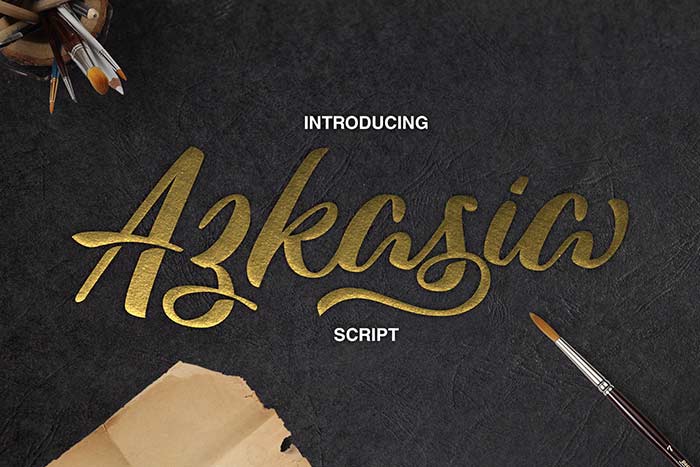
Free Azkasia Font
Azkasia free commercial font is a cool, brushed letter script that is perfect for titles and headlines. This smooth and elegant font script is perfect for company logo, greetings, invitation, branding, poster, flyers, book cover, quotes, etc.
Preview Of Free Azkasia Font: